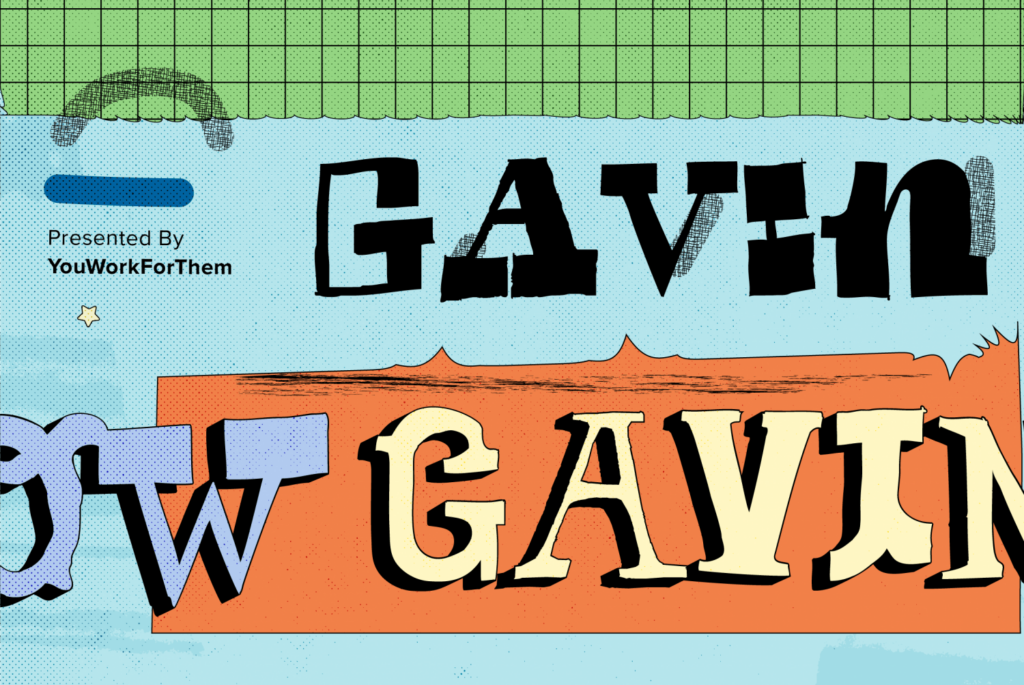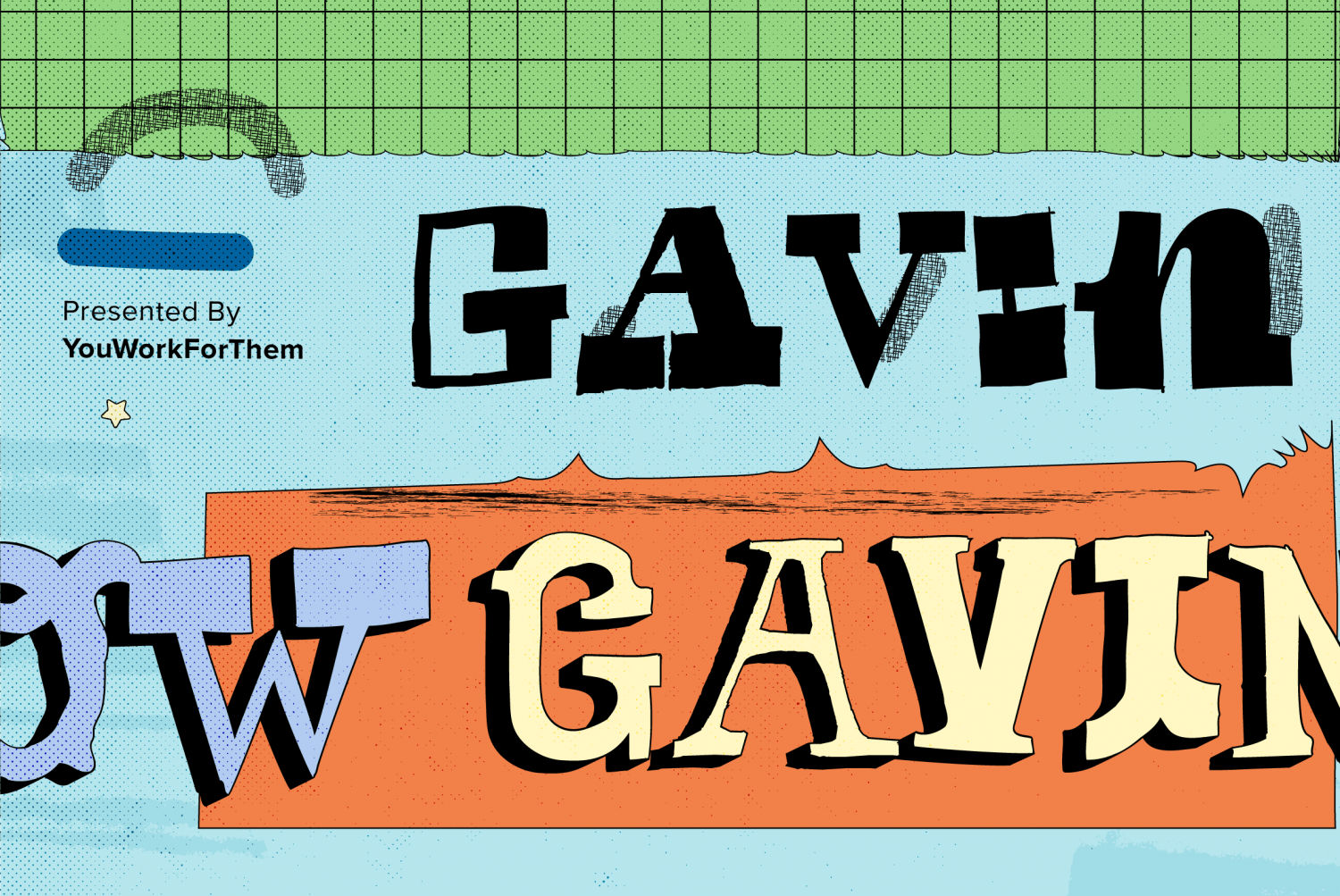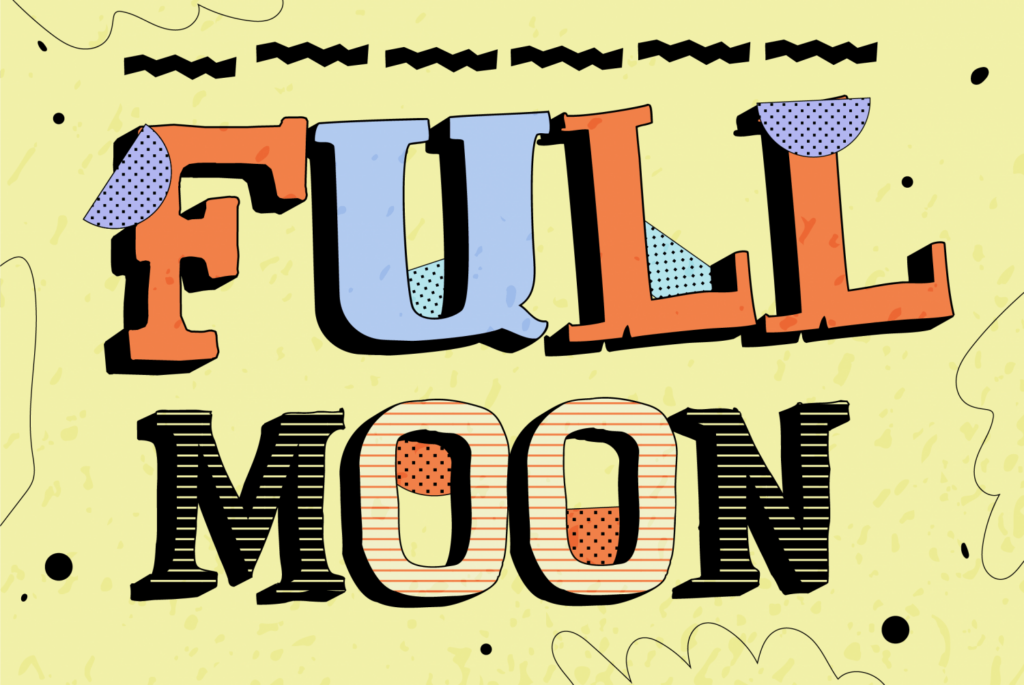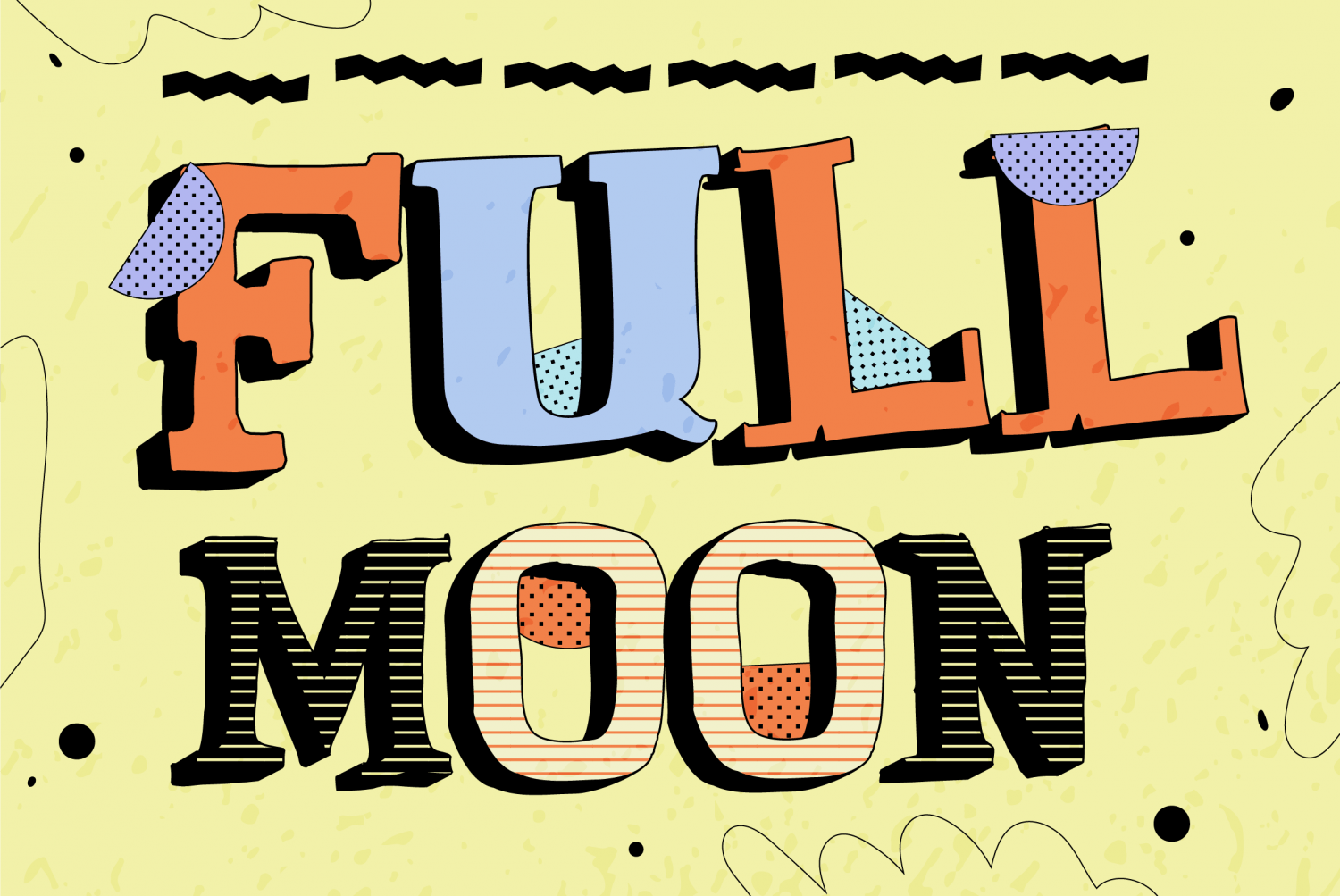
About YWFT Gavin
Designed by YouWorkForThem, YWFT Gavin is an eccentric type design based on the handset graphic collection, Gavin. While those original vector illustrations began as a hand-drawn exploration of George Bruce\’s Seven-Line Pica, they eventually took on a…